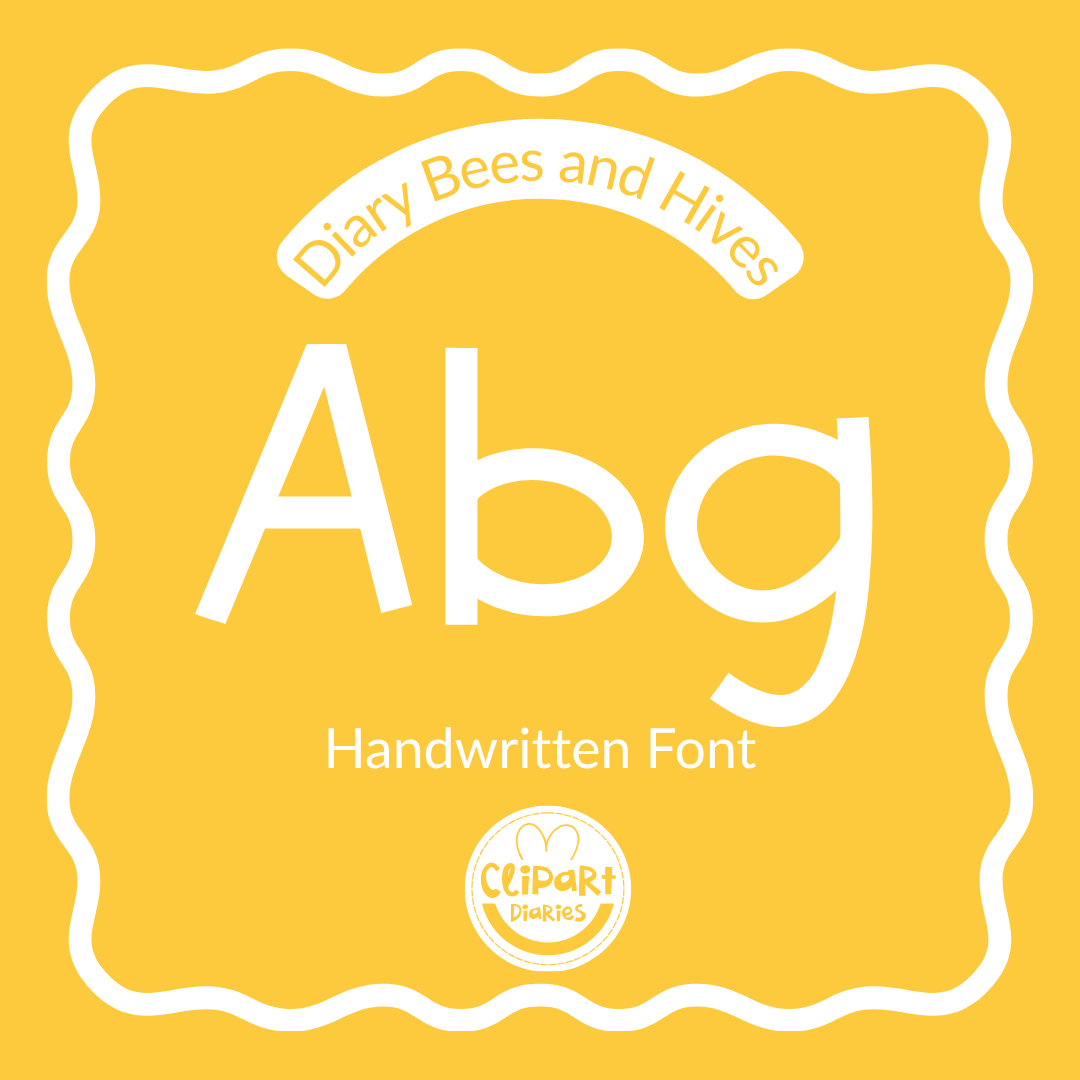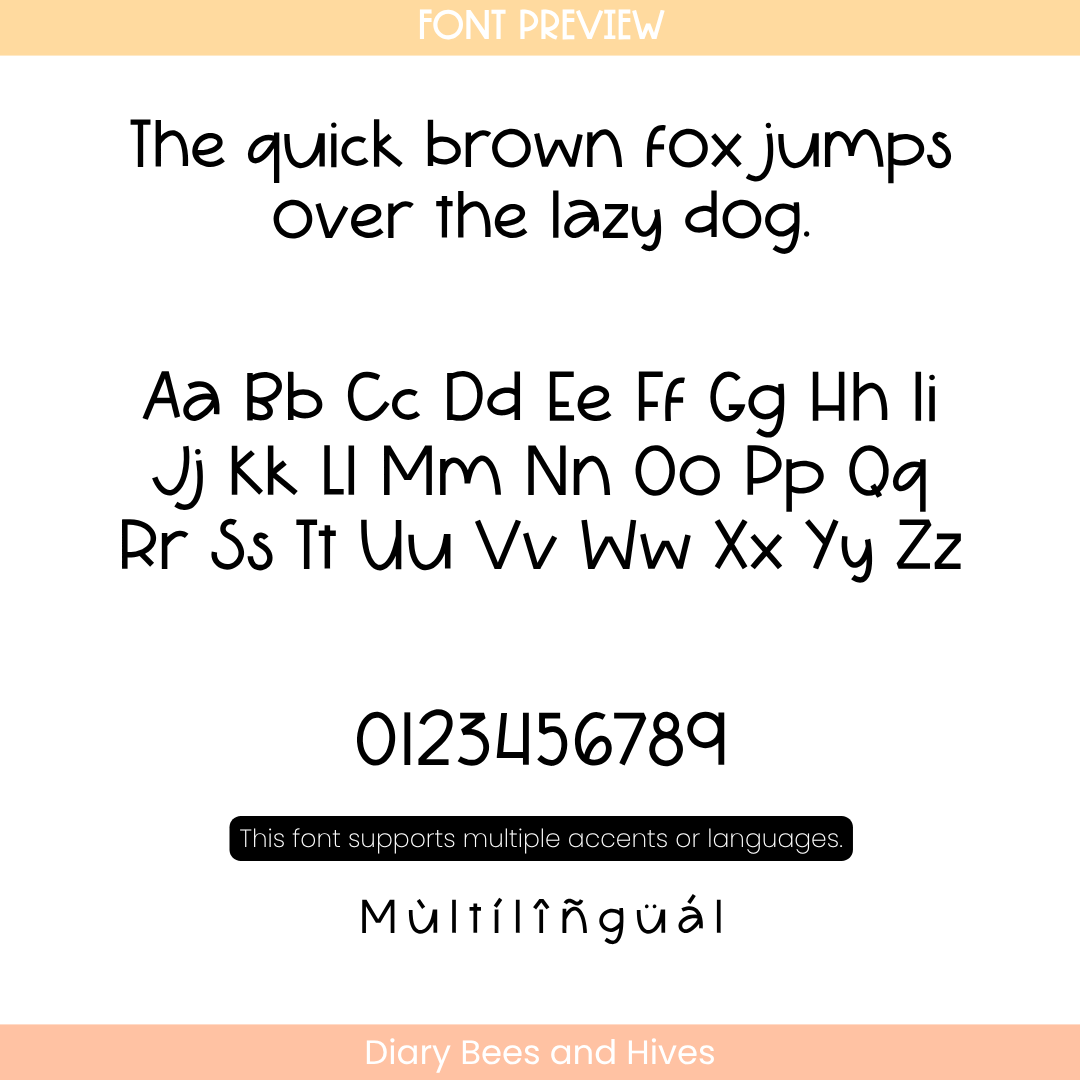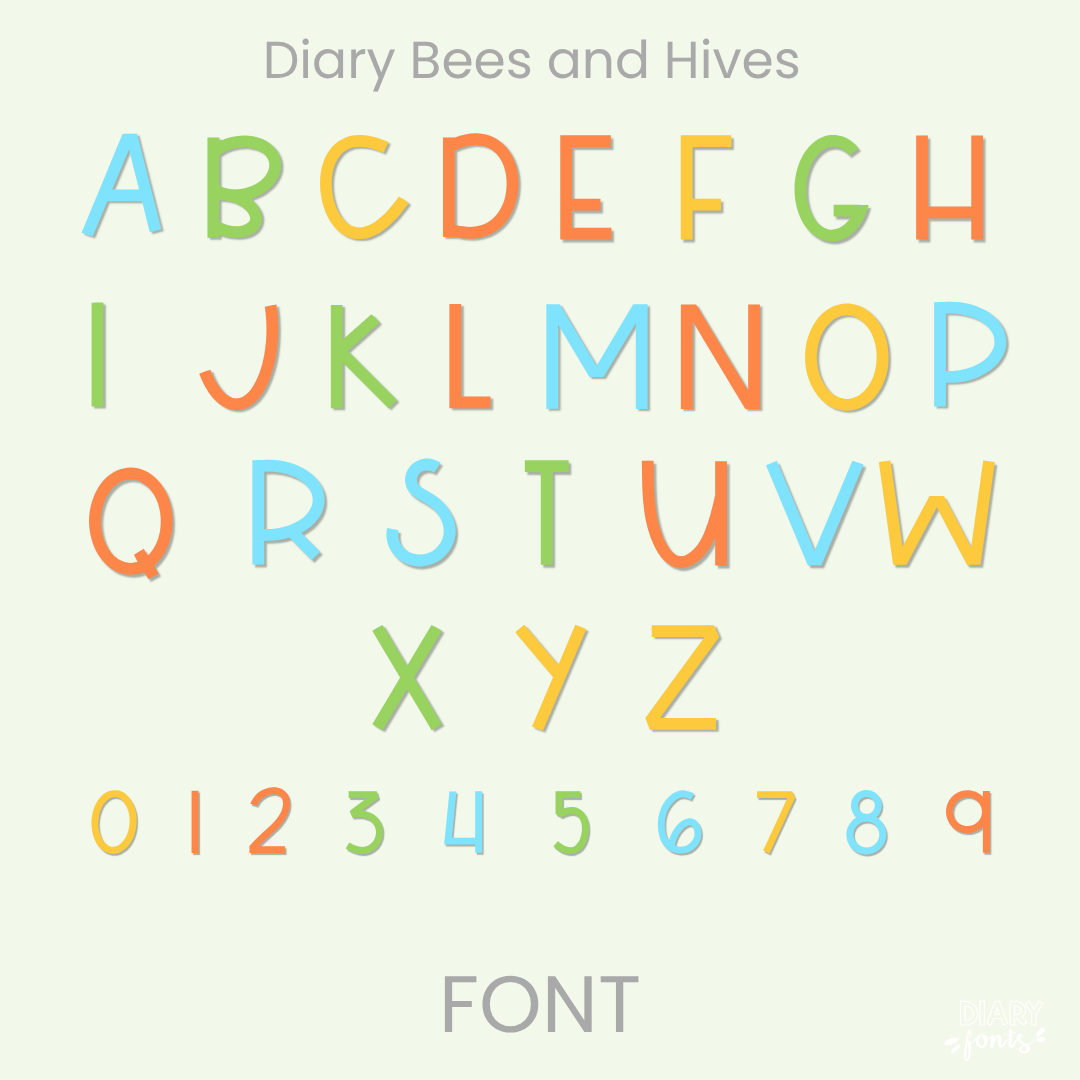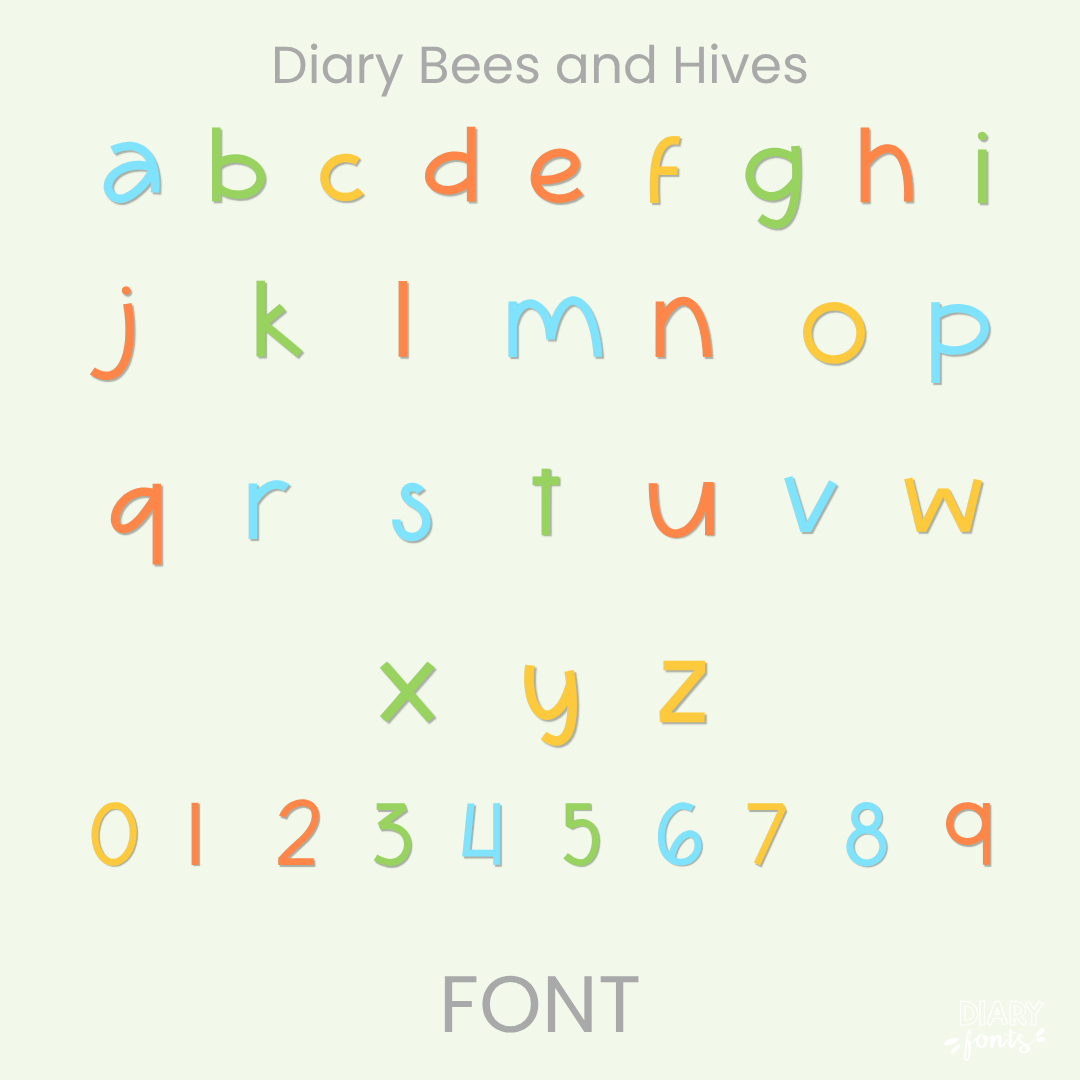
Infuse your creative projects with a sweet, hand-crafted feel using Diary Bees and Hives, a handwritten font that perfectly blends a cozy aesthetic with professional legibility. This versatile typeface includes a complete set of uppercase and lowercase letters, numbers 0–9, and multi-language support for various accents, making it ideal for diverse educational content. It is engineered for seamless compatibility with Canva, MS Office, and Adobe Apps, as well as popular iPad tools like GoodNotes and Procreate. Whether you are creating nature-themed classroom decor, worksheets, or digital planners, Diary Bees and Hives offers a polished, organic look that is perfect for both personal and commercial use.